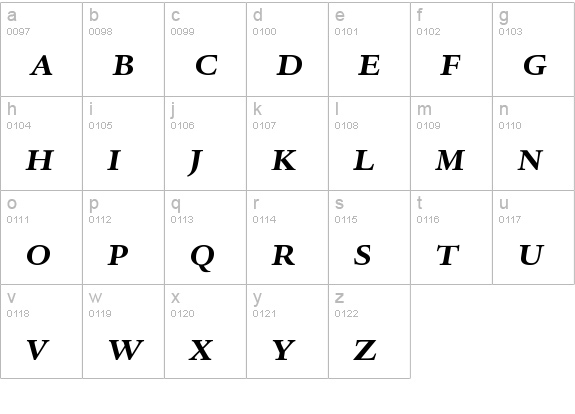
The DTLHaarlemmerDCaps-BoldItalic font is a bold and stylish typeface that exudes elegance and sophistication. Its distinctive italicized design adds a touch of flair and creativity to any text. Perfect for adding emphasis and impact to headlines, titles, and other display text, this font is sure to make a statement. What's even better is that this font is available for free download at FontsMarket.com. Yes, you read that right - you can get your hands on this stunning typeface without spending a dime. So why wait? Elevate your designs with the DTLHaarlemmerDCaps-BoldItalic font today!